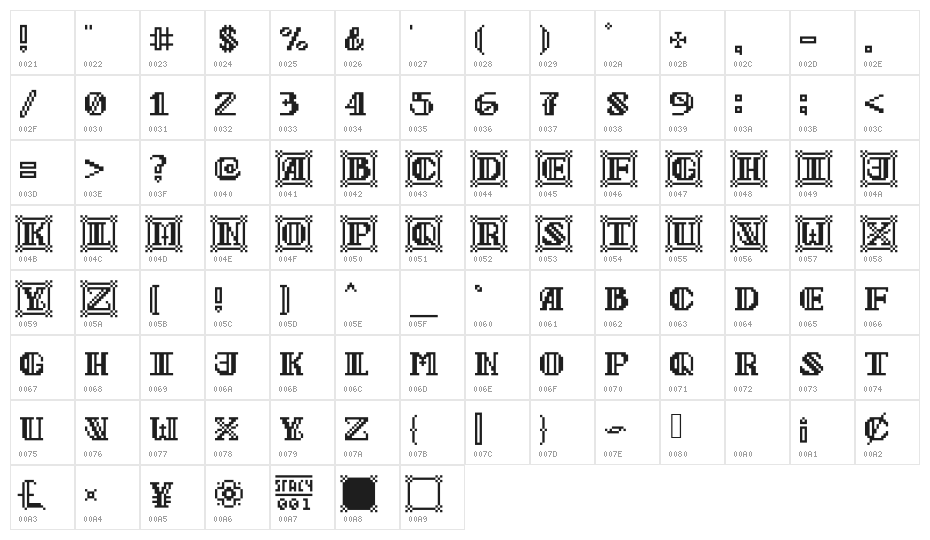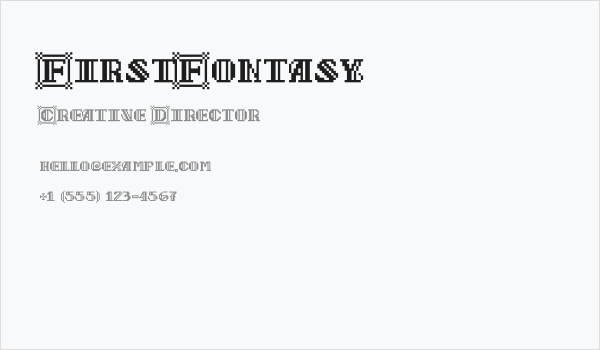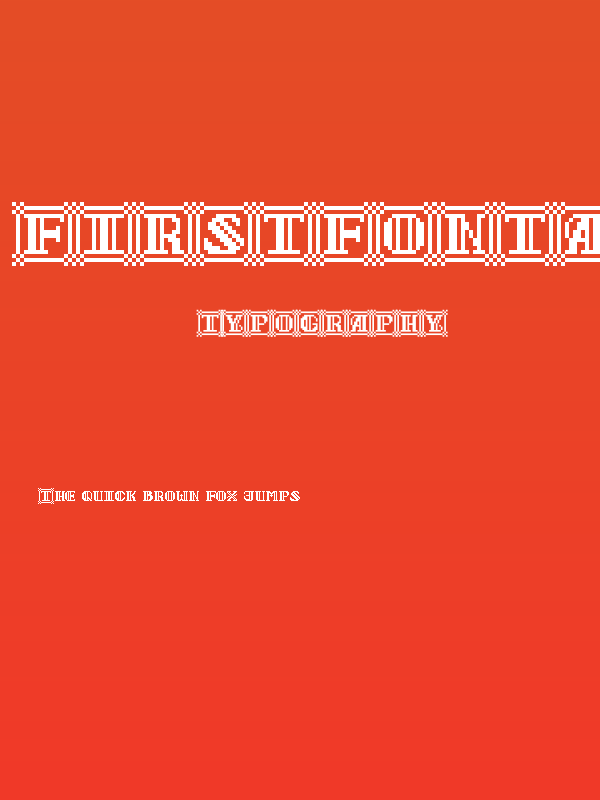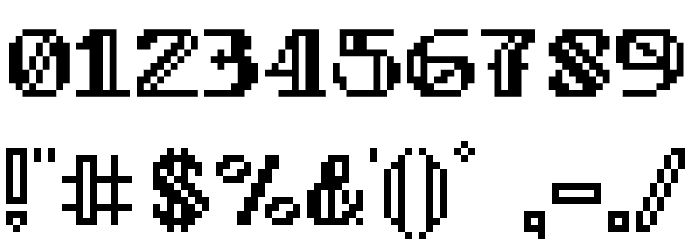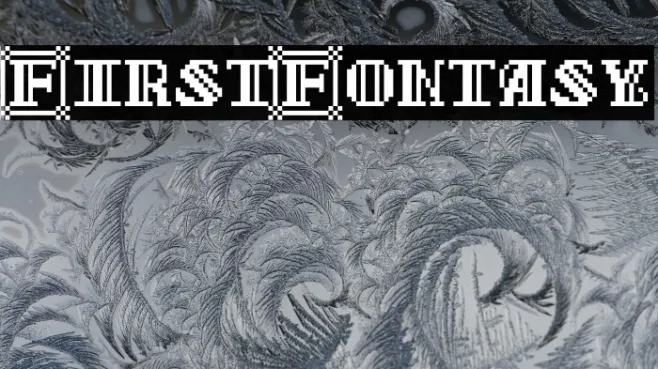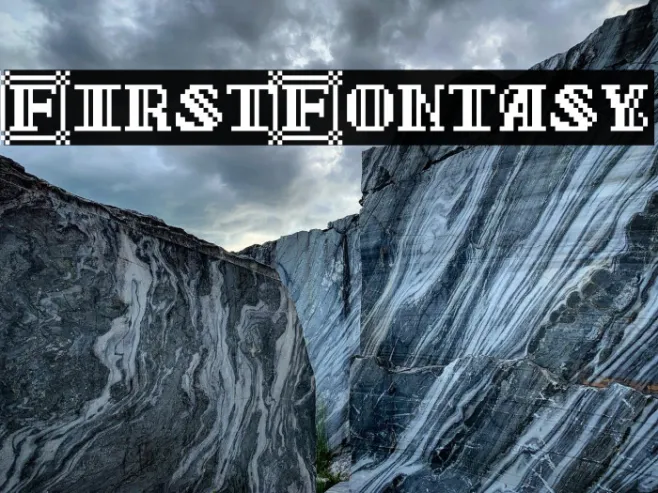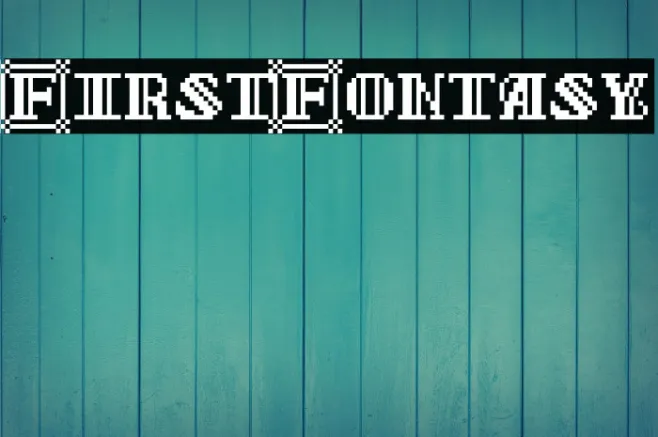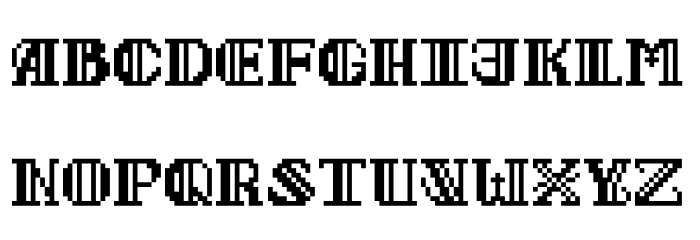
FirstFontasy Font
FirstFontasy Description
This font features a unique blend of decorative and modern elements, characterized by its pixelated, grid-like structure. The uppercase letters are bold and striking, with intricate patterns that create a sense of depth and texture. The lowercase letters maintain a consistent style, ensuring readability while retaining the font's distinctive appearance. Numbers and special characters are designed with the same attention to detail, making them stand out in any design. The overall aesthetic is reminiscent of retro digital displays, offering a nostalgic yet contemporary feel. This font is perfect for projects that require a bold statement or a touch of vintage digital charm.
| Overall Style | Retro, Decorative |
| Proposed Projects | Ideal for video game graphics, retro-themed posters, digital art, and branding that seeks a nostalgic touch. |